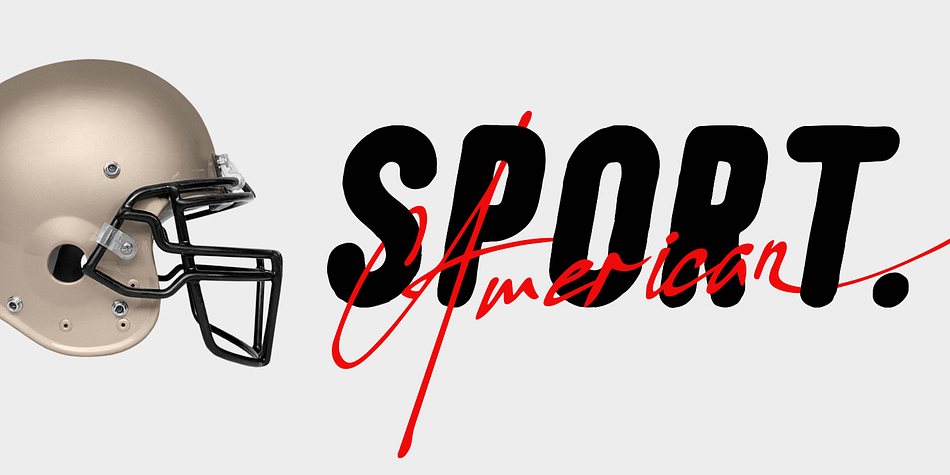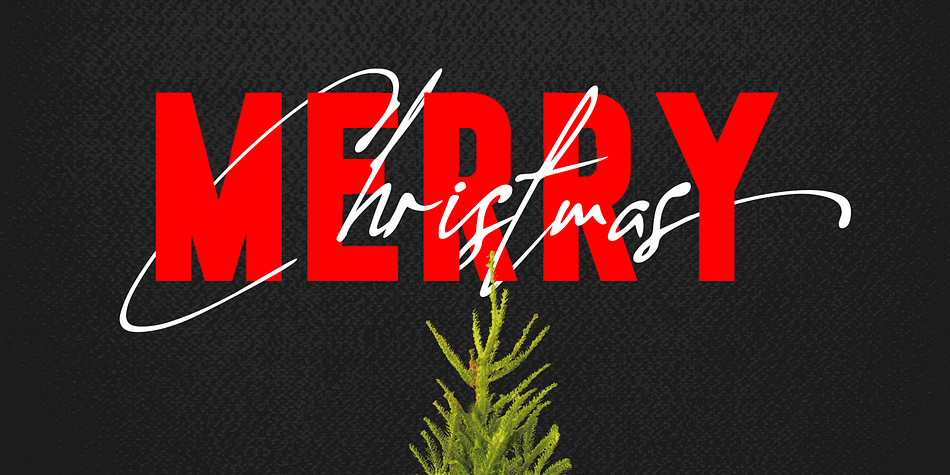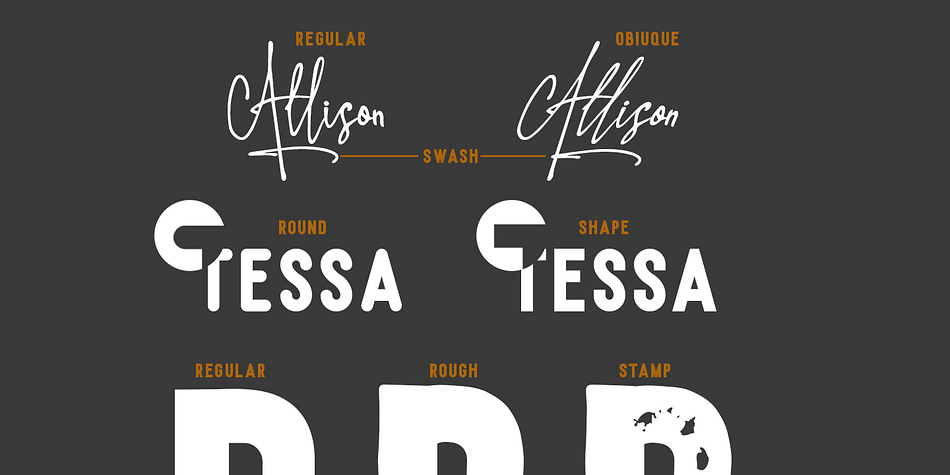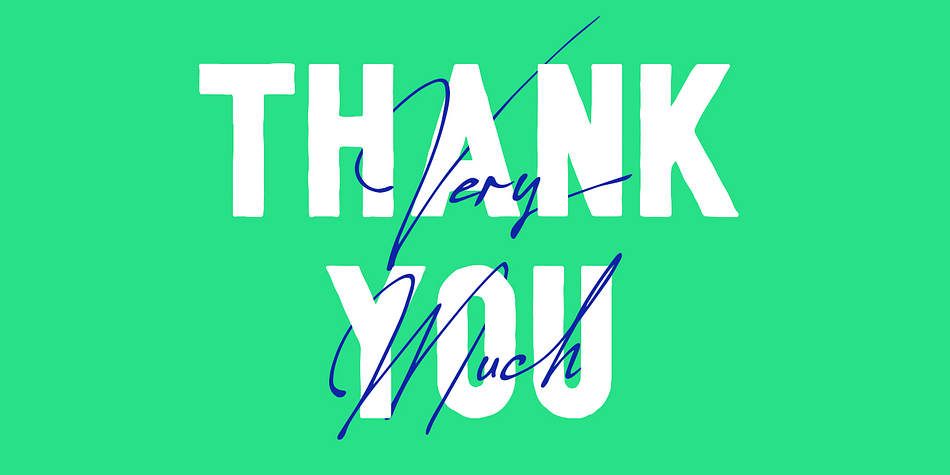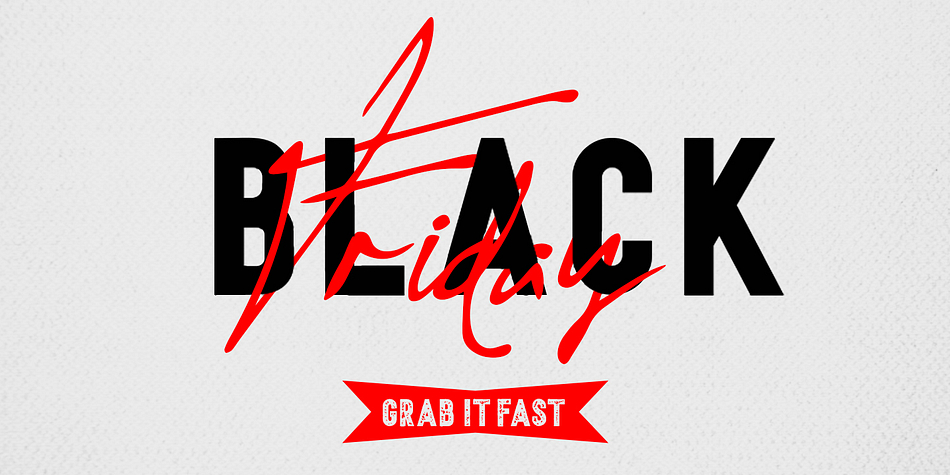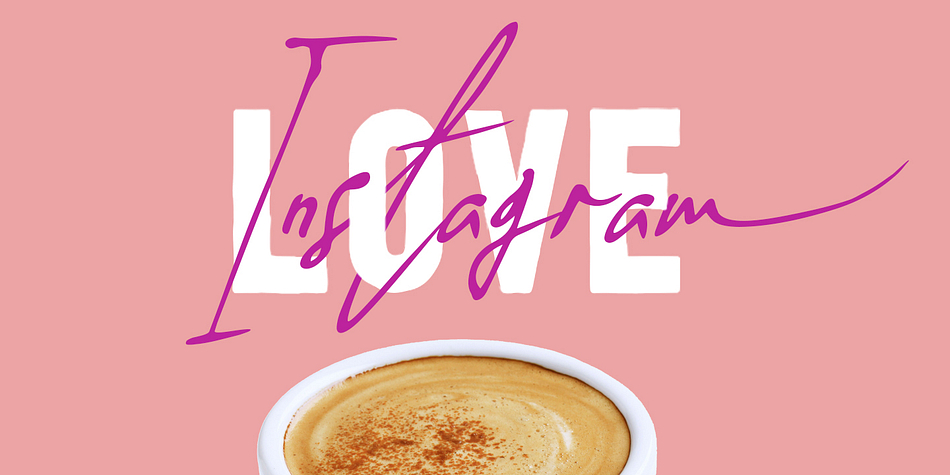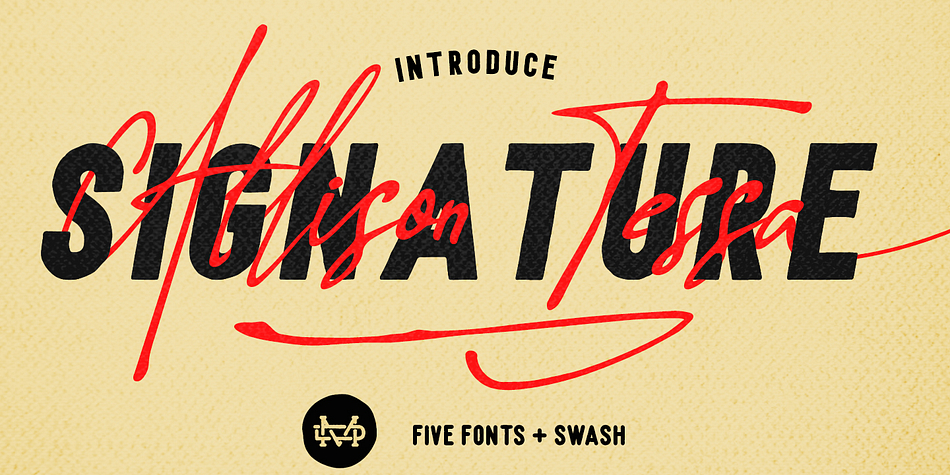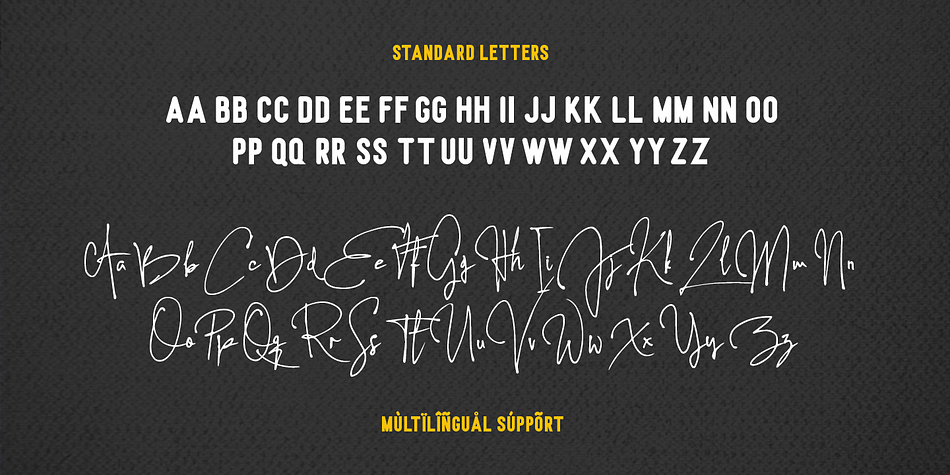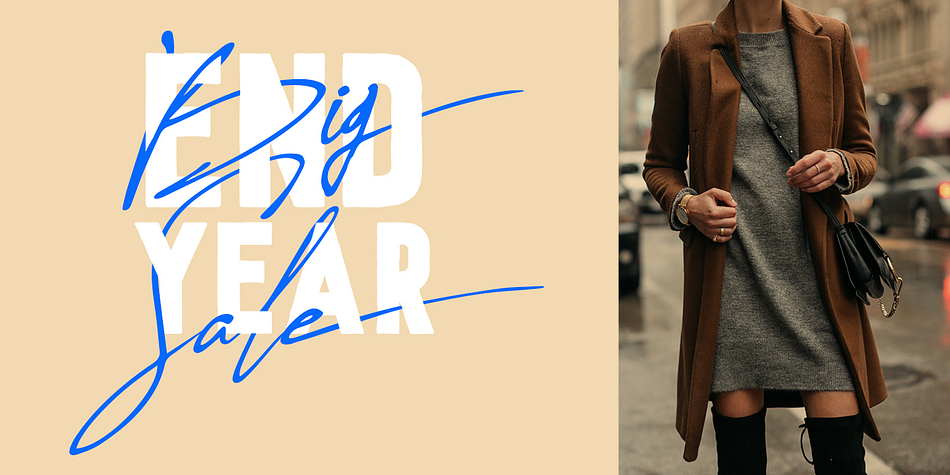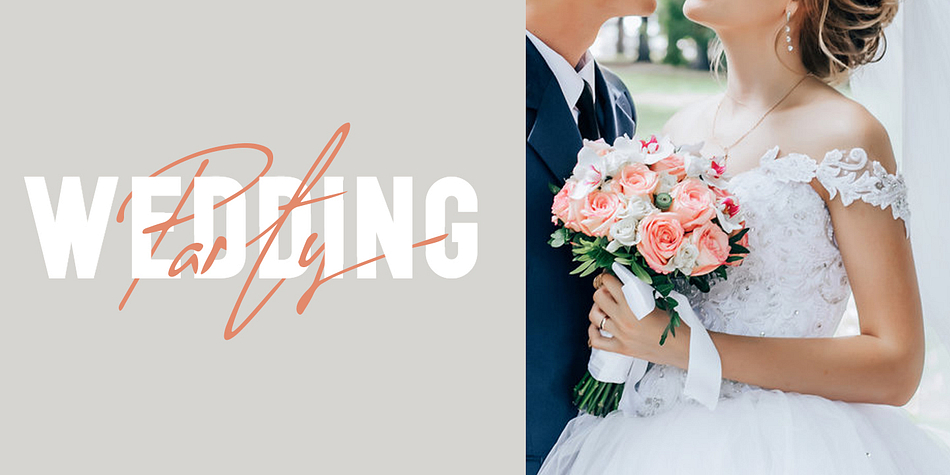
Designed by Suandana Ipandemade, Allison Tessa is a multiple classification font family. This typeface has six styles and was published by madeDeduk.
Allison Tessa is gorgeous signature font and sans serif font with three variation regular, rough and stamp. Allison Tessa perfect for poster design, book covers, merchandise, fashion campaigns, newsletters, branding, advertising, magazines, greeting cards, album covers, and quote designs and more.
- UPPERCASE
- lowercase
- International Glyps
- Alternative lowercase “alt01”
- Ligature “More than 150”
- Swash